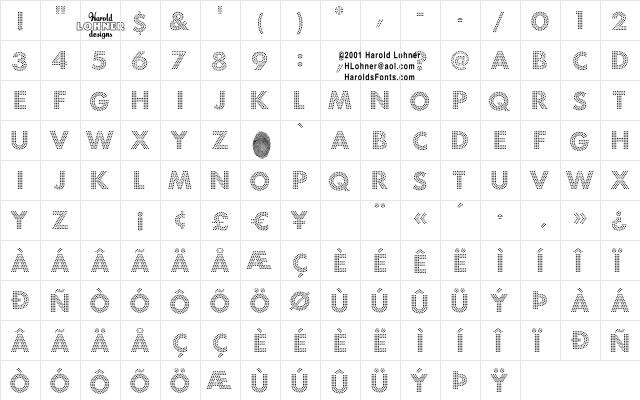
FortunaDotLighter Regular
Design Context for FortunaDotLighter Typeface
FortunaDotLighter is rooted in pixel-grid construction, making it a natural fit for game UI, retro computing aesthetics, and digital nostalgia projects.
A natural choice for retro game titles, chiptune music branding, 8-bit UI, and digital nostalgia projects.